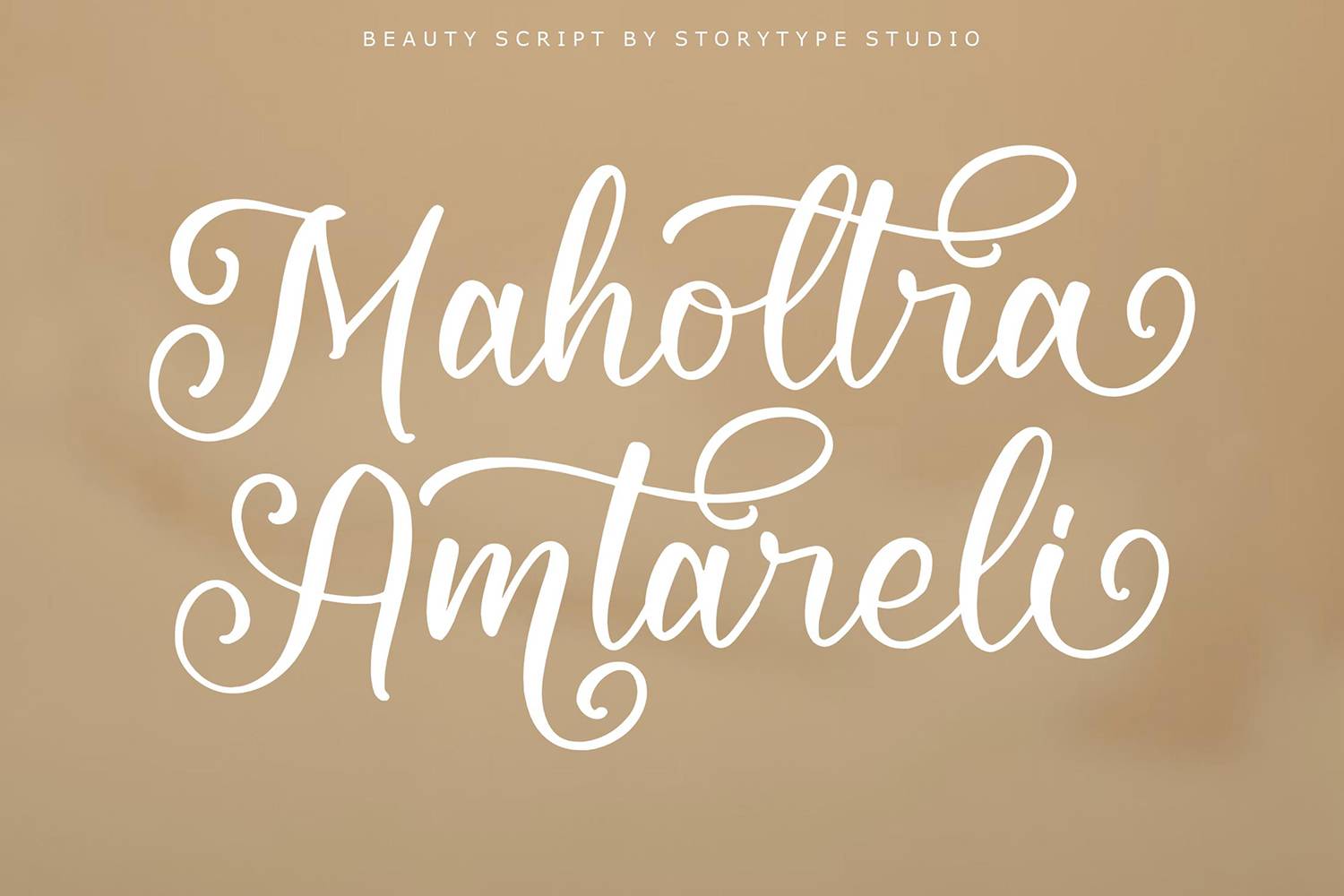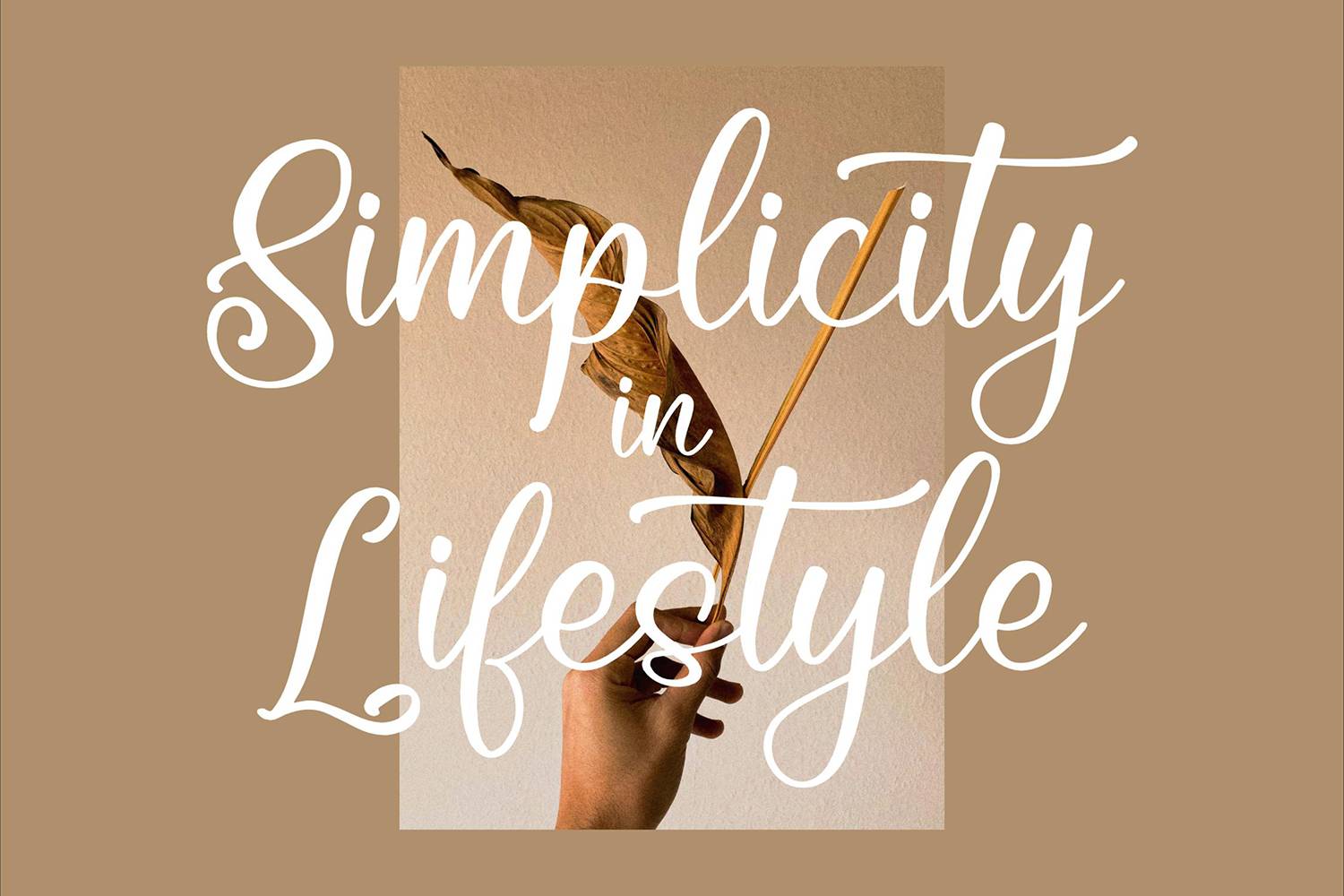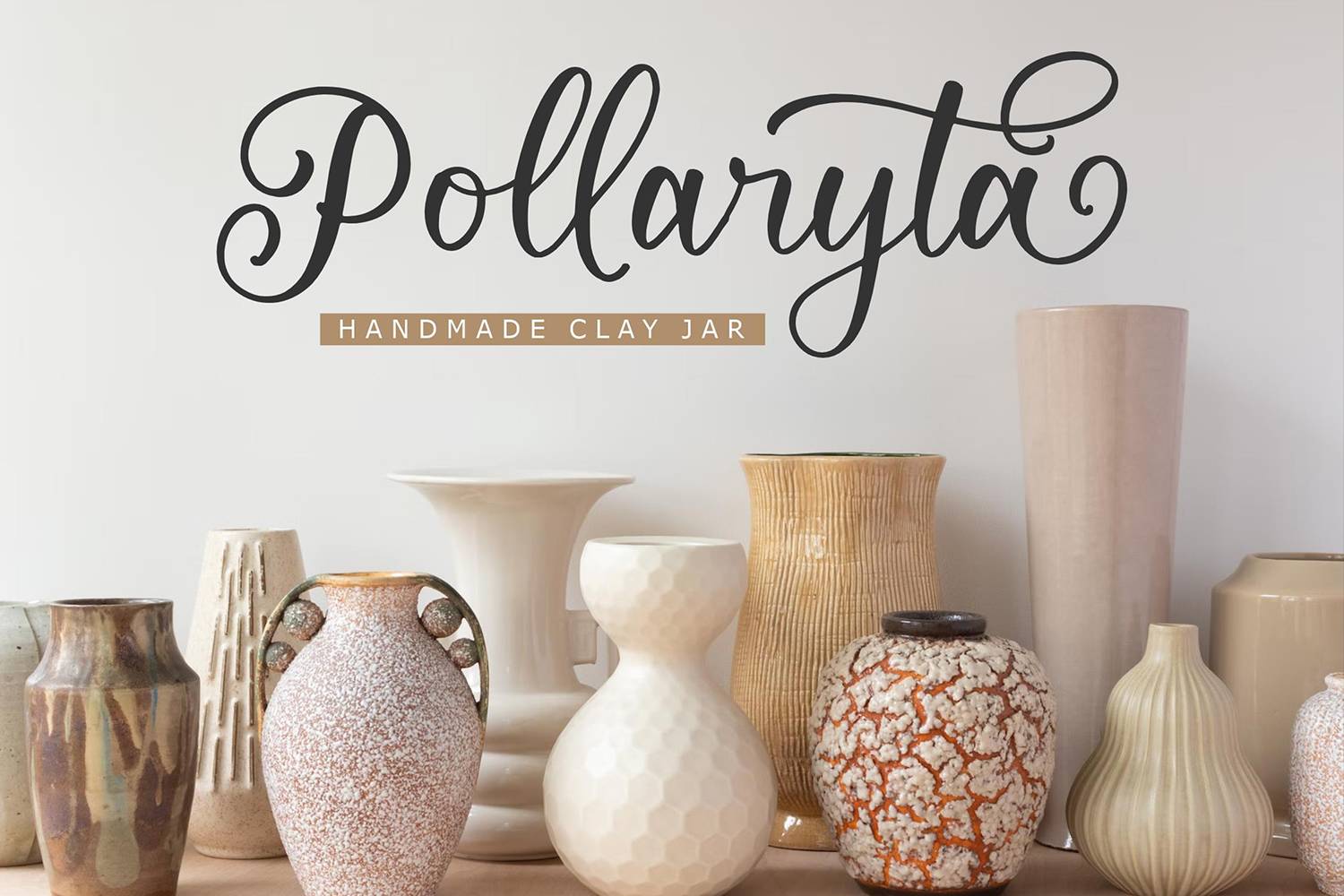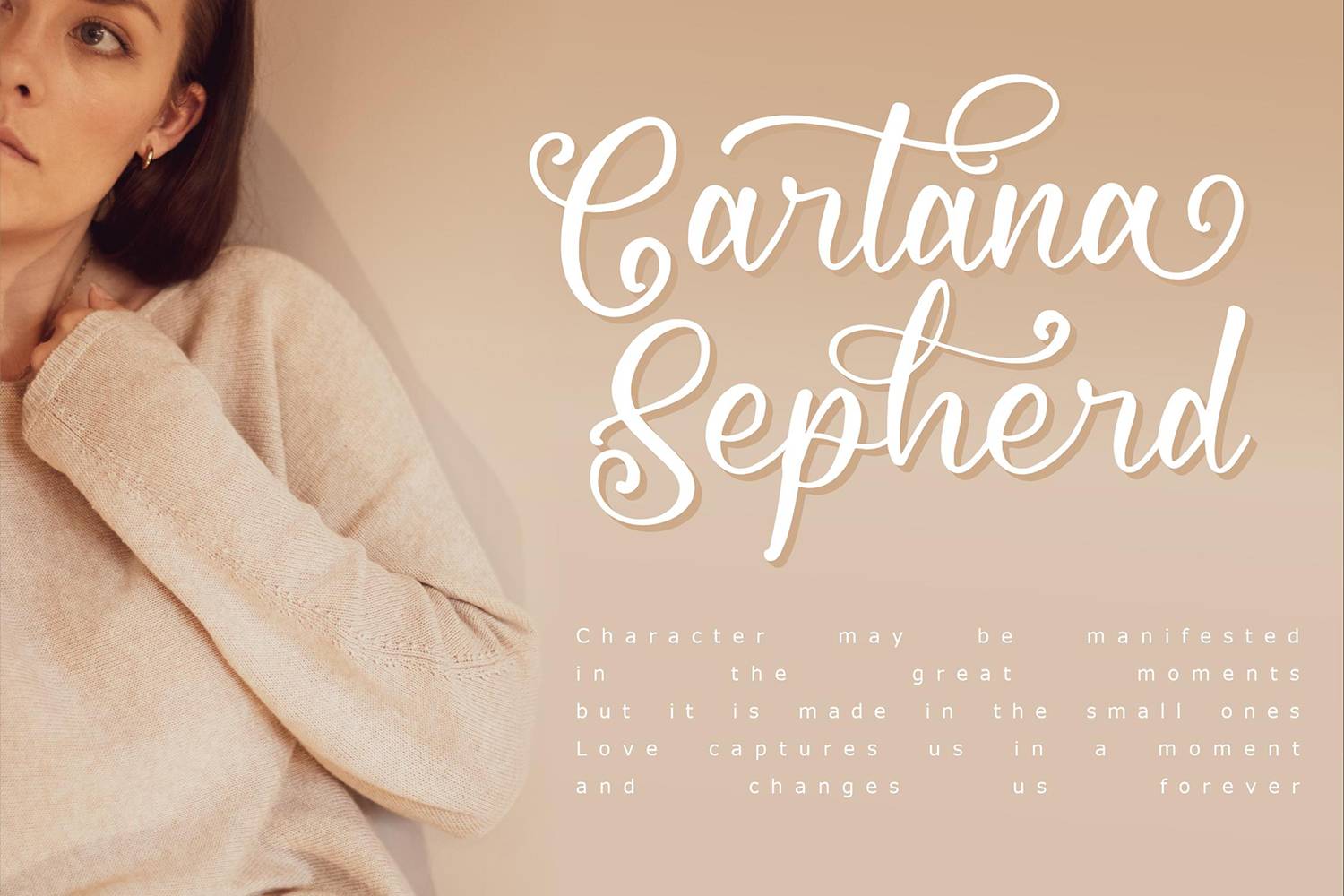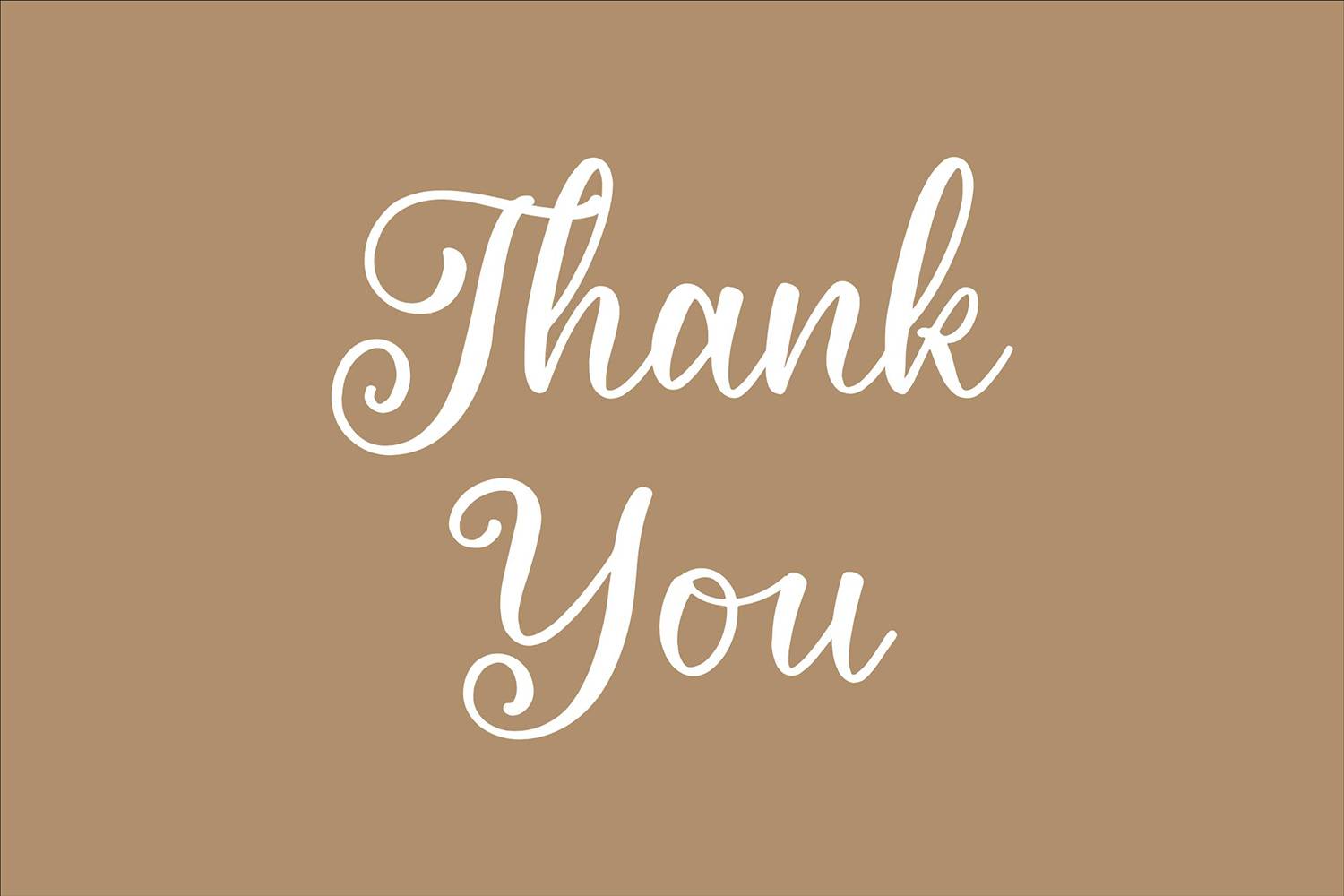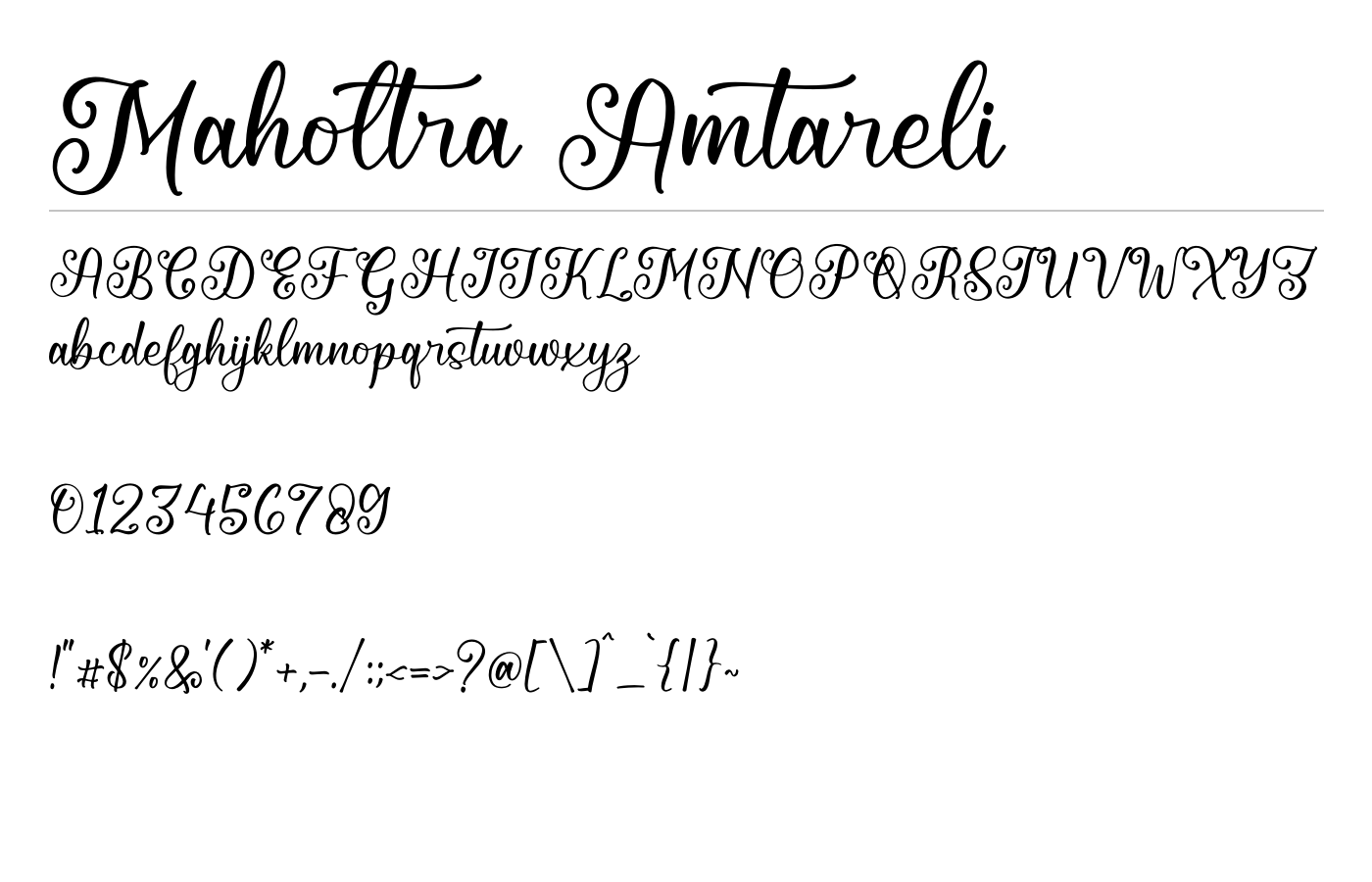
Maholtra Amtareli is an elegant, thin-script font that features delicate, flowing letterforms with graceful swirls and loops. Its high contrast strokes and airy spacing give it a refined, vintage feel, perfect for invitations, branding, and any design seeking a sophisticated, handcrafted touch. This font works beautifully in headlines and decorative text where a stylish, feminine personality is desired.
Maholtra Amtareli Font
About Maholtra Amtareli Font